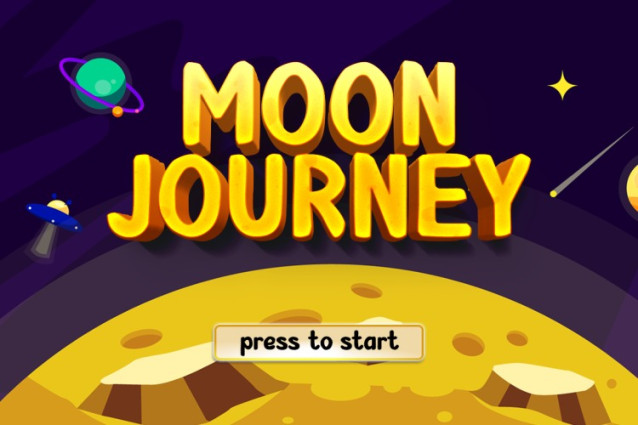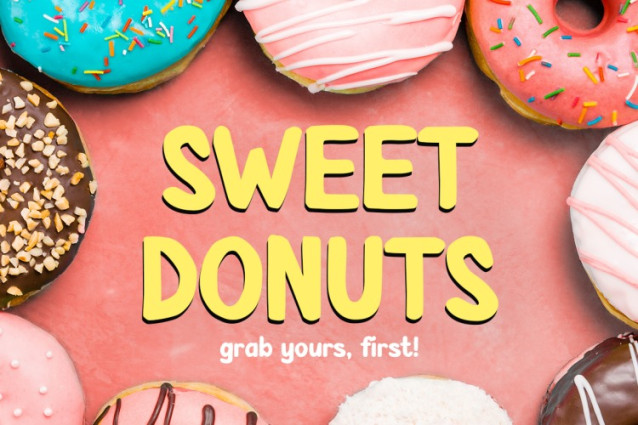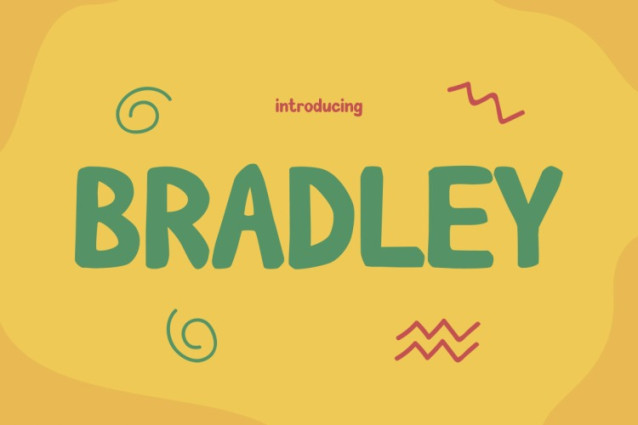
Bradley Playful Font
Bradley Playful Font is a playful and vibrant typeface designed to grab attention with its bold, hand-drawn style. Its rounded, chunky letters exude a sense of fun and approachability, making it perfect for cheerful and informal designs. Moreover, the font’s quirky, irregular curves add personality and a dynamic flow, ensuring that any text appears visually engaging.
In the sample, the vibrant green lettering against a bright yellow background highlights its friendly and welcoming nature. Furthermore, this combination enhances its legibility, even in colorful or bold layouts. Because of this, Kids font Bradley Playful is ideal for creative projects that prioritize uniqueness and an inviting tone. Its casual yet captivating appearance makes it suitable for headlines, branding, or playful advertisements where grabbing attention is key.
In addition, Kids font Bradley provides versatility in its use. While it naturally complements bright and colorful themes, it can also adapt to more muted designs by adding a touch of whimsy. Its hand-drawn look makes it an excellent choice for modern, casual branding, yet it remains professional enough to maintain visual appeal.